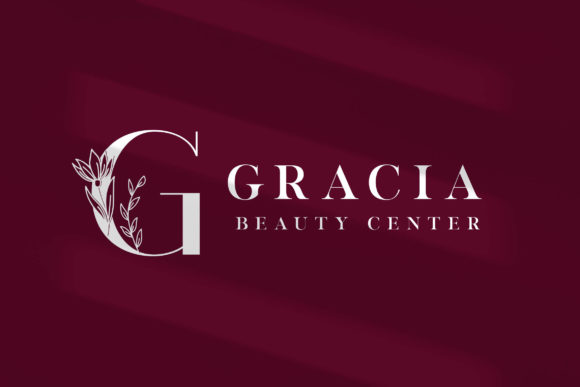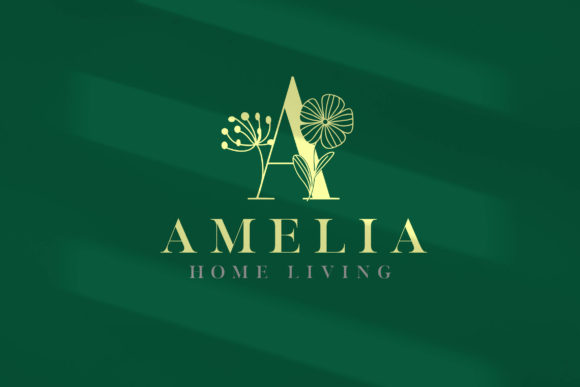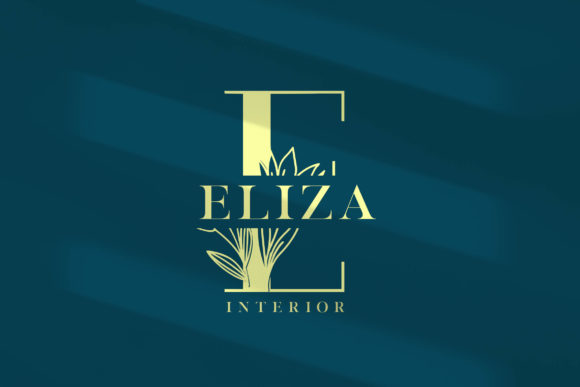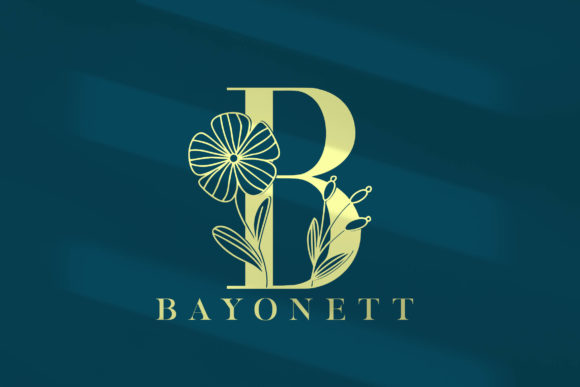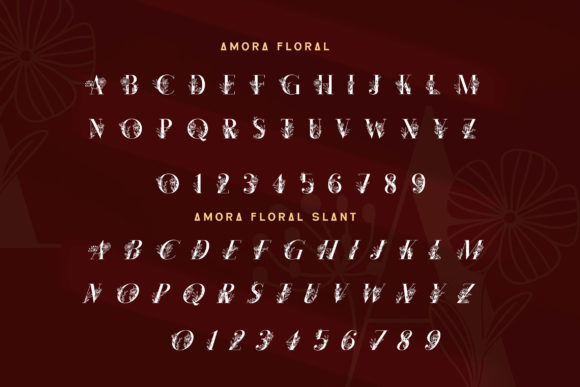
Introducing Amora Elegant Monogram Font: Elevate Your Designs with Romance and Elegance
Are you a designer or crafter looking for a unique and romantic font to add a touch of elegance to your projects? Look no further than the Amora Elegant Monogram Font. This dainty and decorative font is perfect for love letters, wedding invitations, and any design idea that requires a hint of sophistication. In this article, we’ll explore the features and benefits of Amora Elegant Monogram Font and how it can elevate your designs to the next level.
What is Amora Elegant Monogram Font?
Amora Elegant Monogram Font is a beautifully crafted font that exudes romance and elegance. Its unique and intricate design makes it perfect for adding a personal touch to your projects. Whether you’re designing wedding invitations, love letters, or any other type of project that requires a touch of sophistication, Amora Elegant Monogram Font is the perfect choice.
Key Features of Amora Elegant Monogram Font
- Unique and Dainty Design: Amora Elegant Monogram Font features a one-of-a-kind design that is both dainty and elegant. Its intricate details make it perfect for adding a touch of romance to your projects.
- Romantic and Lovely: This font is designed to evoke feelings of love and romance. Its beautiful design makes it perfect for wedding invitations, love letters, and any other project that requires a romantic touch.
- Versatile: Amora Elegant Monogram Font is versatile and can be used for a variety of projects, including wedding invitations, love letters, and any other design idea that requires a touch of elegance.
- Elegant: This font is designed to add a touch of elegance to your projects. Its sophisticated design makes it perfect for designers and crafters who want to create beautiful and eye-catching projects.
Benefits of Using Amora Elegant Monogram Font
Using Amora Elegant Monogram Font can bring numerous benefits to your designs. Here are a few:
- Adds a Touch of Romance: Amora Elegant Monogram Font is designed to add a touch of romance to your projects. Its beautiful design makes it perfect for wedding invitations, love letters, and any other project that requires a romantic touch.
- Creates a Personal Touch: This font is perfect for adding a personal touch to your projects. Its unique design makes it stand out from other fonts, giving your projects a one-of-a-kind look.
- Elevates Your Designs: Amora Elegant Monogram Font is designed to elevate your designs to the next level. Its elegant design makes it perfect for designers and crafters who want to create beautiful and eye-catching projects.
How to Use Amora Elegant Monogram Font
Using Amora Elegant Monogram Font is easy. Here are a few tips:
- Pair it with Other Fonts: Amora Elegant Monogram Font can be paired with other fonts to create a unique and eye-catching design.
- Use it for Headings: This font is perfect for headings and titles. Its elegant design makes it perfect for adding a touch of sophistication to your projects.
- Add it to Your Designs: Amora Elegant Monogram Font can be added to your designs in a variety of ways. You can use it as a overlay, or as a standalone font.
| Font Name | Amora Elegant Monogram Font |
In conclusion, Amora Elegant Monogram Font is a beautiful and unique font that is perfect for designers and crafters who want to add a touch of romance and elegance to their projects. Its dainty and decorative design makes it perfect for love letters, wedding invitations, and any other design idea that requires a hint of sophistication. With its numerous benefits and easy-to-use features, Amora Elegant Monogram Font is a must-have for any designer or crafter looking to elevate their designs to the next level.